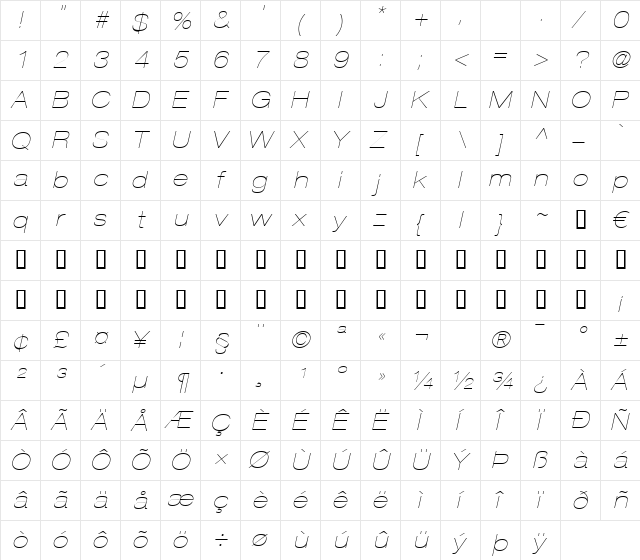
HelveticaNeue LT 23 UltLtEx Oblique Font Preview
Design Context for HelveticaNeue LT 23 UltLtEx Typeface
HelveticaNeue LT 23 UltLtEx takes a measured approach to typography — its balanced proportions and neutral character make it a reliable workhorse for both digital and print work. The dynamic lean of this cut emphasises speed and emphasis in any layout. The delicate stroke weight brings airiness and refinement to layouts.